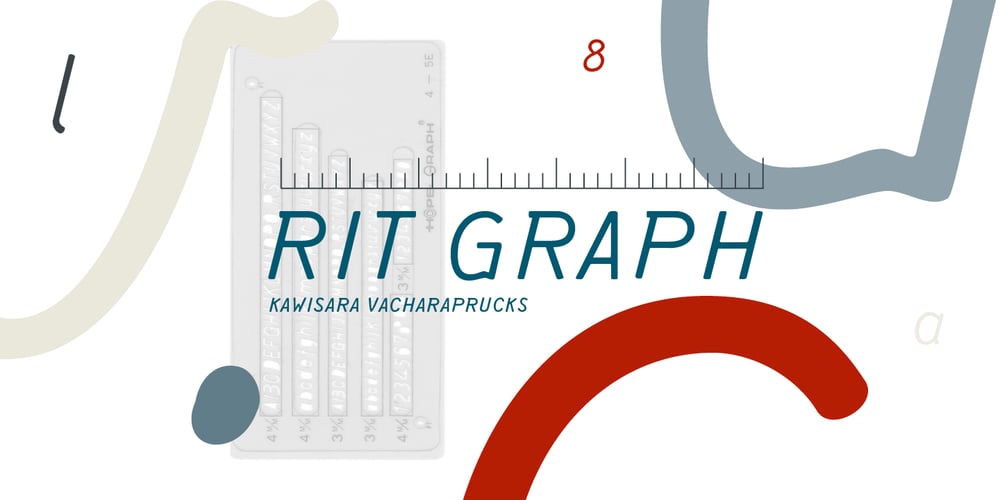
Rit Graph Font Family was designed by Kawisara Vacharaprucks and published by Stawix. Rit Graph contains 2 styles and family package options. Rit Graph has been revived from old style font template often used by architects or engineers. The design of Rit Graph is casual yet sophisticate with a slanted proportion and little details of rough edges from writing tools.